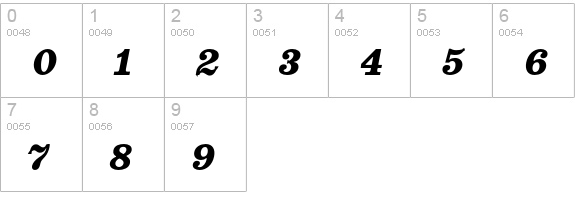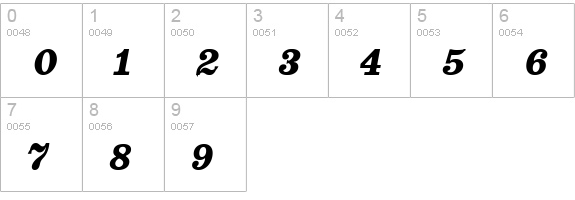
Oxtail Black Italic is a maximum-weight, dramatic, italic variant in the Oxtail typeface family \xE2\x80\x94 well suited to maximum-impact headlines, posters, and packaging.
Introducing Oxtail Black Italic font - a sleek and stylish typeface designed to make a bold statement. Its sharp, elegant curves and striking slant give any text a modern and sophisticated look. Perfect for adding a touch of sophistication to your designs, whether for branding, editorial projects, or any other creative endeavor. And the best part? Oxtail Black Italic font is available for free! You can easily download this stunning typeface at FontsMarket.com and enhance your design projects with its unique charm and versatility. Don't miss out on this amazing opportunity to elevate your designs with the timeless elegance of Oxtail Black Italic font.